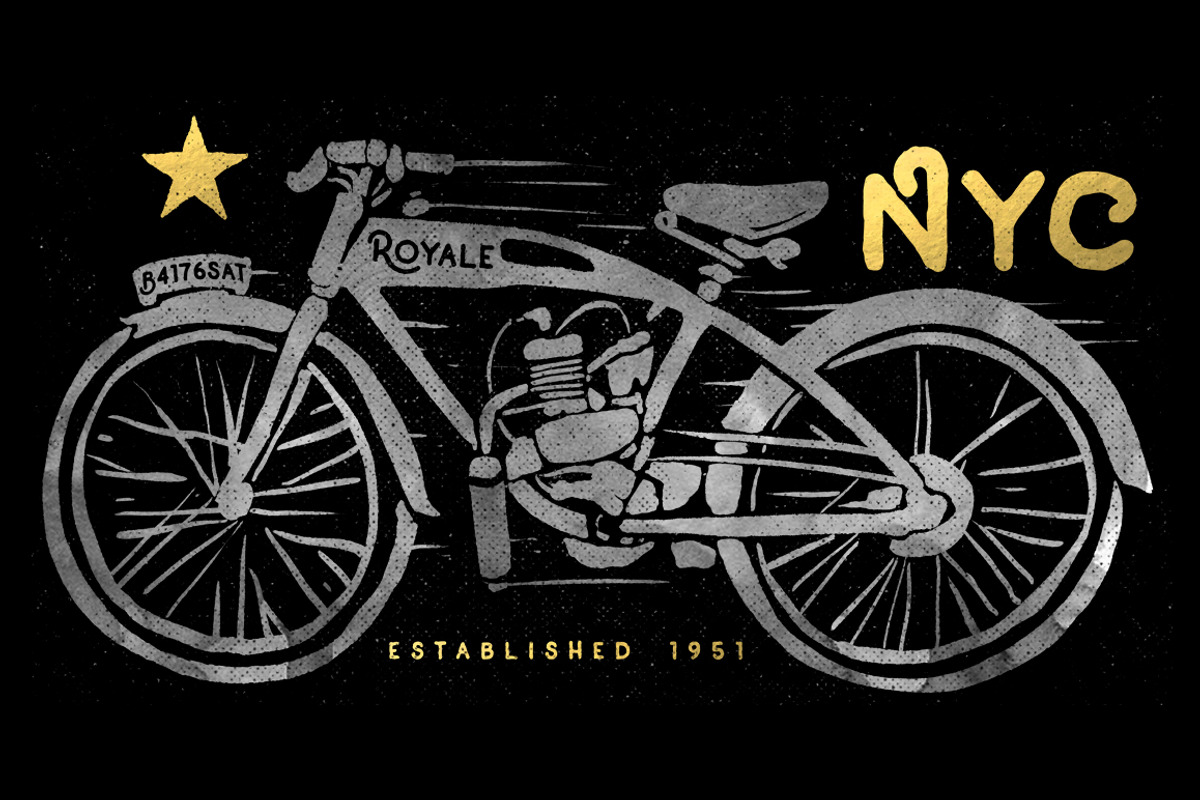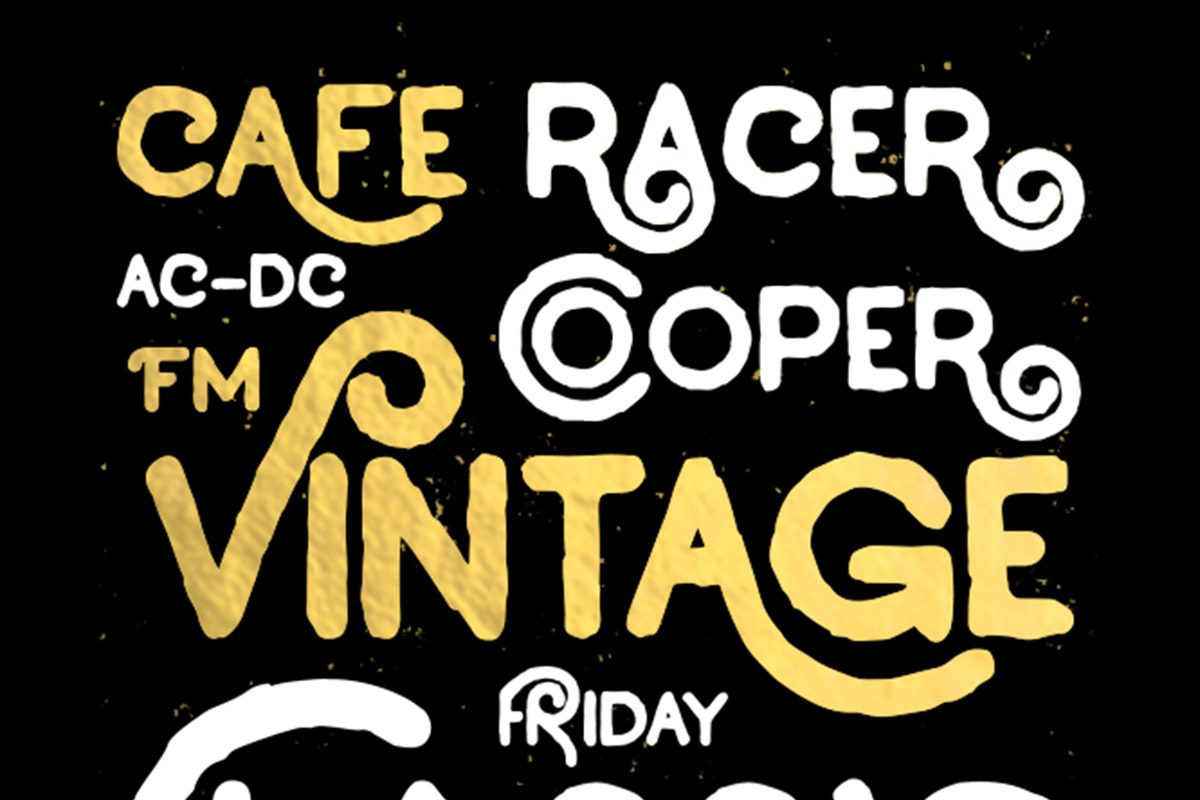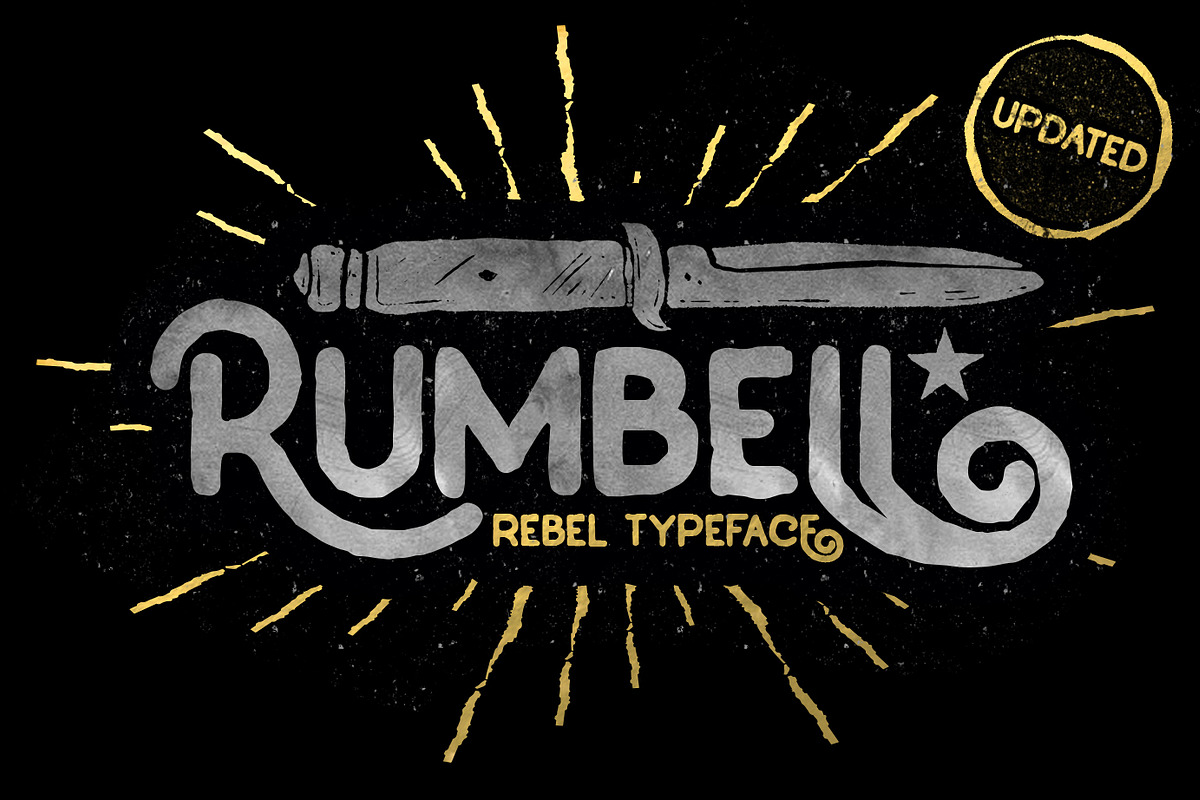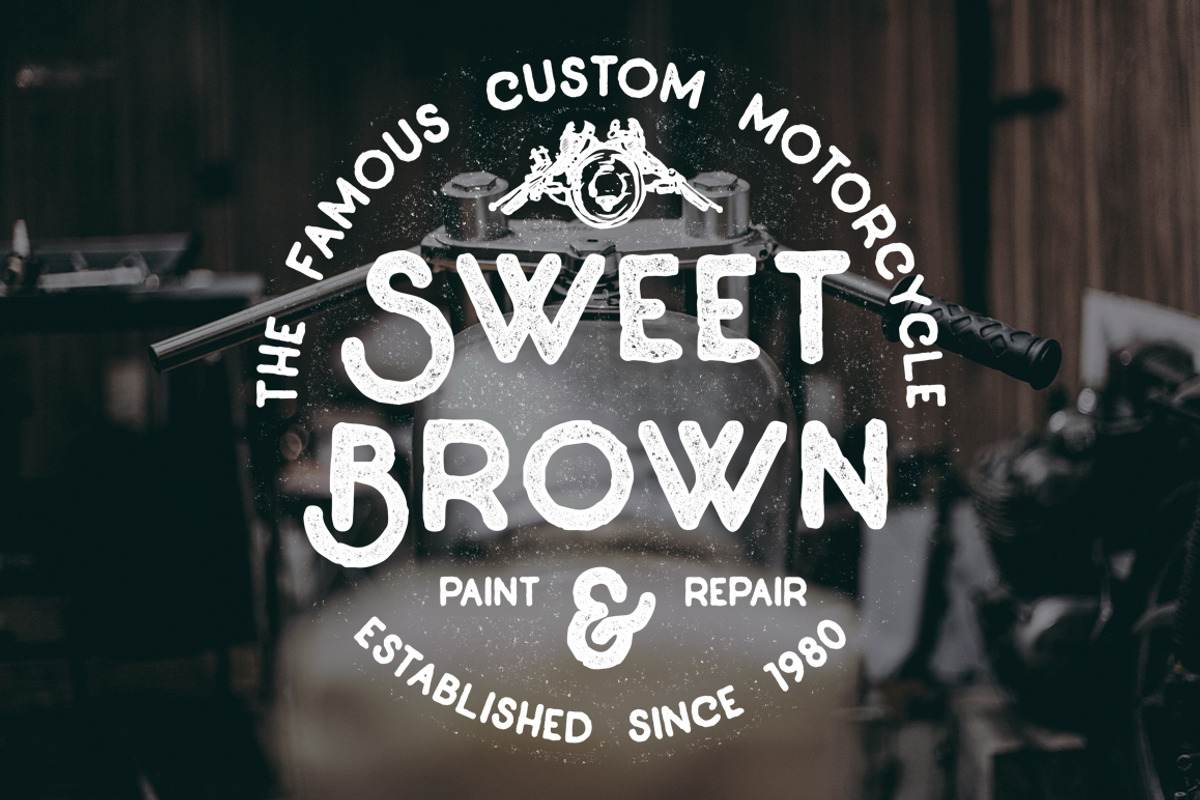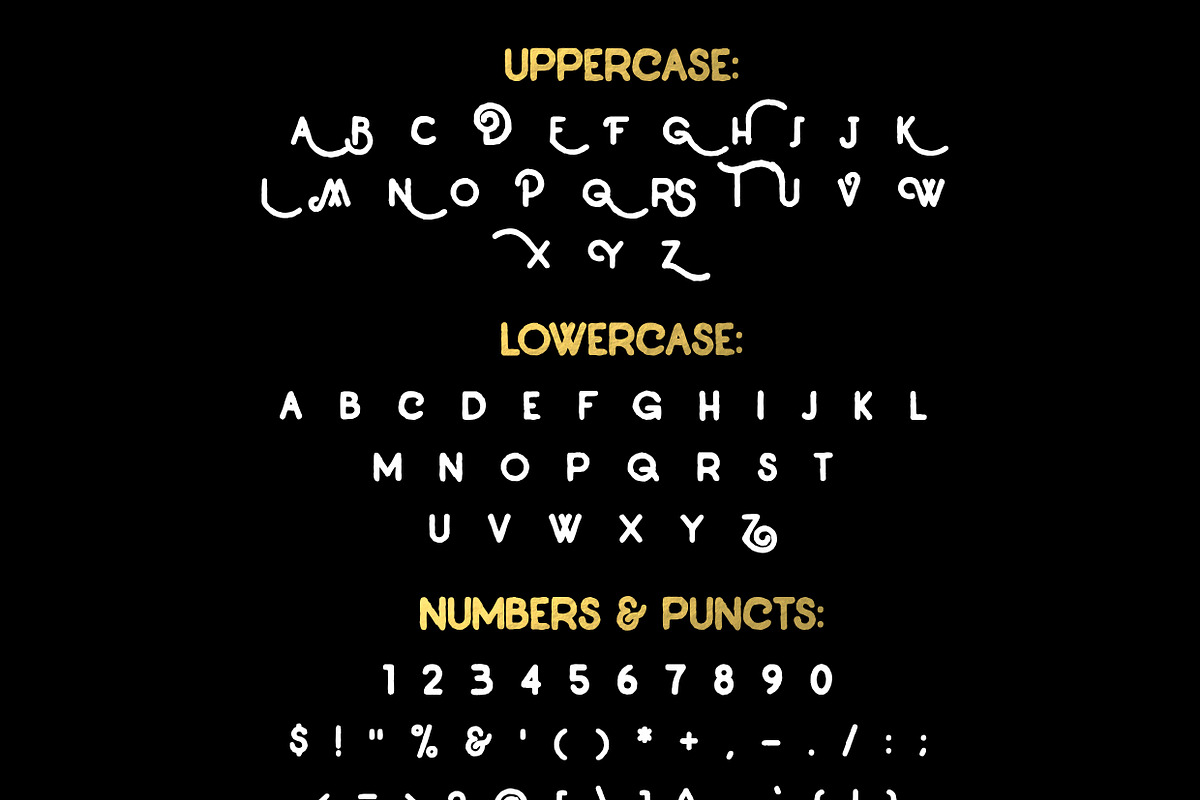
Rumbell Vintage Branding font
Rumbell is a solid bold vintage display font inspired from the old store and garage billboard in the classic era. With rough edges and stylish sans-serif characters it will definitely brings you back to the moment when everything was hand lettered and simply bold solid "in your face" font style. Perfect for your branding design that implements the classic concepts or anything that you need to touch with the old man's style. Just let your imaginations play with it ;)